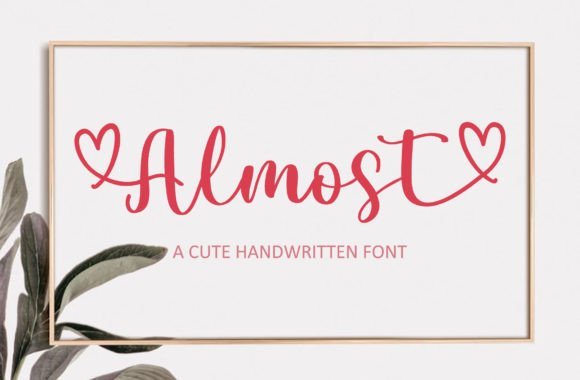
The Perfect Touch of Whimsy: Almost Font
Have you ever found yourself staring at a blank page, searching for the perfect font to bring your creative vision to life? That’s exactly what happened to me the last time I was designing a wedding invitation. I wanted something that would capture the sweetness and playfulness of the couple, but nothing seemed quite right – until I stumbled upon the Almost Font.
This adorable handwritten font is a game-changer for designers looking to add a touch of personality to their projects. With its incredibly versatile style, the Almost Font is perfect for creating everything from beautiful stationery to eye-catching social media posts. And the best part? It’s PUA encoded, making it easy to access all of the glyphs and swashes you need to make your design truly special.
Key Features of “Almost Font”
- Unique Characteristic: Almost Font features a unique, hand-drawn design with subtle irregularities, giving it a distinctive and human touch that sets it apart from other fonts.
- Weight and Style: Almost Font comes in 3 weights (Light, Regular, and Bold) and 2 styles (Regular and Italic), providing designers with ample flexibility to choose the perfect combination for their project.
Almost Font Review
I’ve had the chance to work with Almost Font, and I must say it’s a decent addition to any designer’s toolbox. Here’s what I think:
- Unique Aesthetic – Almost Font’s quirky, hand-drawn style sets it apart from more traditional fonts.
- High Customization Options – The font offers a wide range of weights, styles, and language support, making it versatile for various projects.
- Good Legibility – Despite its unconventional design, Almost Font is easy to read, even at smaller font sizes.
Almost Font is a solid choice for designers who want to add some personality to their projects. While it may not be perfect, its unique aesthetic and customization options make it a valuable addition to any font collection. However, its limited availability and lack of open-source options might be drawbacks for some designers.
Almost Font is ideal for creating a distressed or vintage look in your designs. It can be used for:
- Marketing materials and advertisements
- Photobooks and scrapbooking
- Any design where a unique, hand-written font is desired
Alternatives to Almost Font
1. Comic Sans
Comic Sans is a sans-serif font that was originally designed to be a friendly, approachable font. It’s often used in informal settings, such as newsletters, children’s books, and websites. Compared to Almost Font, Comic Sans is more playful and cursive-like, making it a better choice for projects that require a more casual tone.
Great Vibes is a script font that’s perfect for adding a touch of elegance and sophistication to your designs. It’s often used in invitations, wedding stationery, and other formal events. Compared to Almost Font, Great Vibes is more refined and luxurious, making it a better choice for projects that require a high-end feel.
Pacifico is a beautiful script font that’s inspired by the seaside. It’s often used in beach-themed designs, travel brochures, and other projects that require a sense of relaxation and calmness. Compared to Almost Font, Pacifico is more laid-back and beachy, making it a better choice for projects that require a coastal vibe.